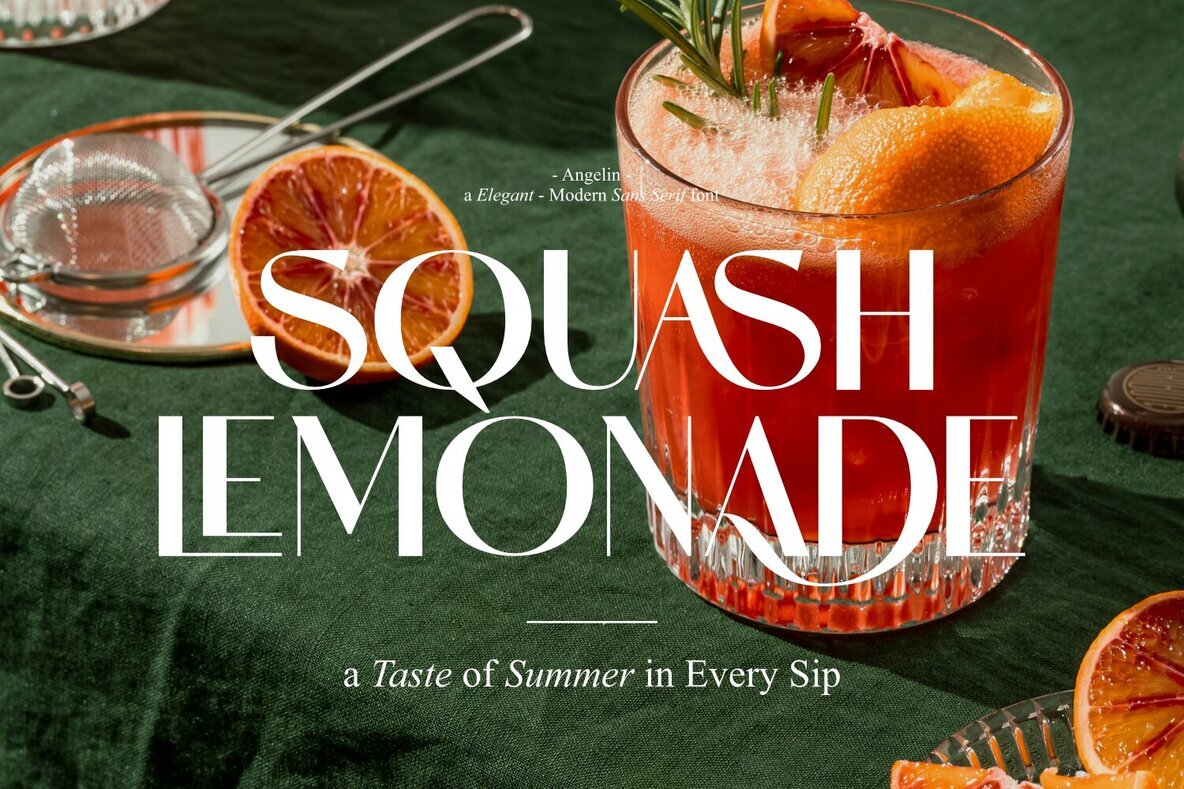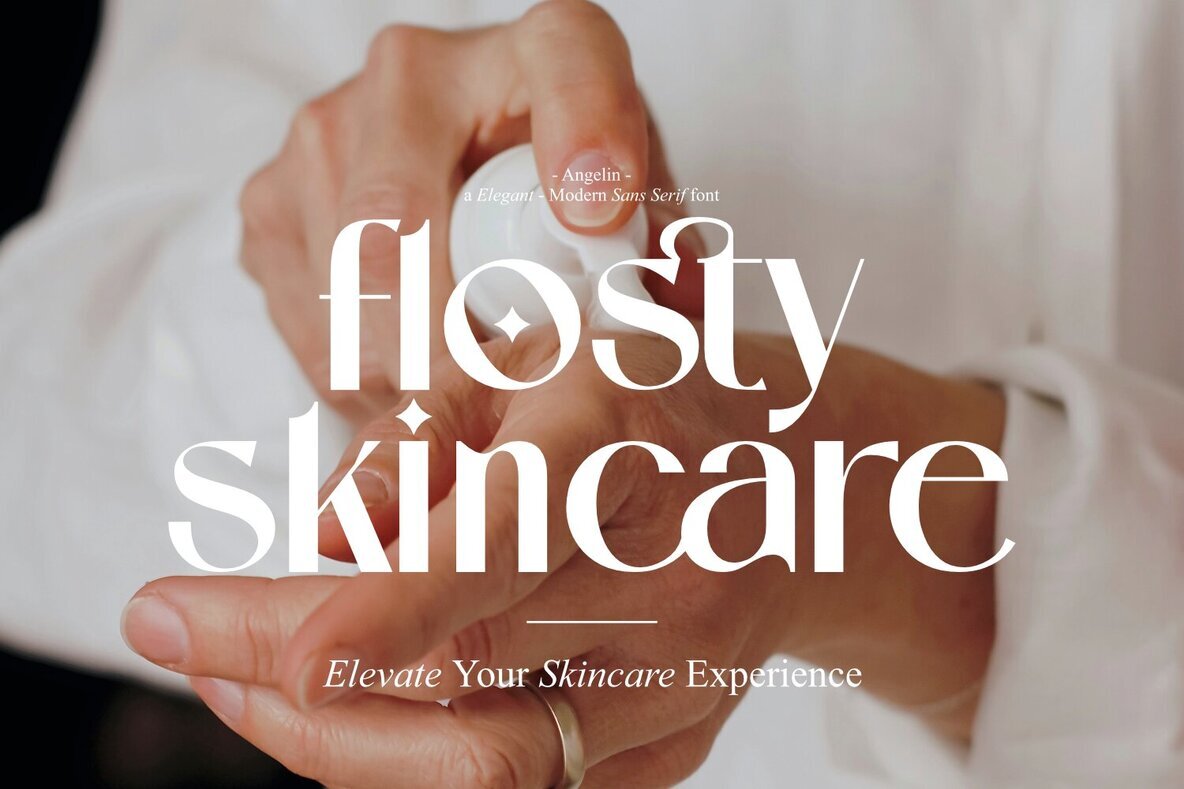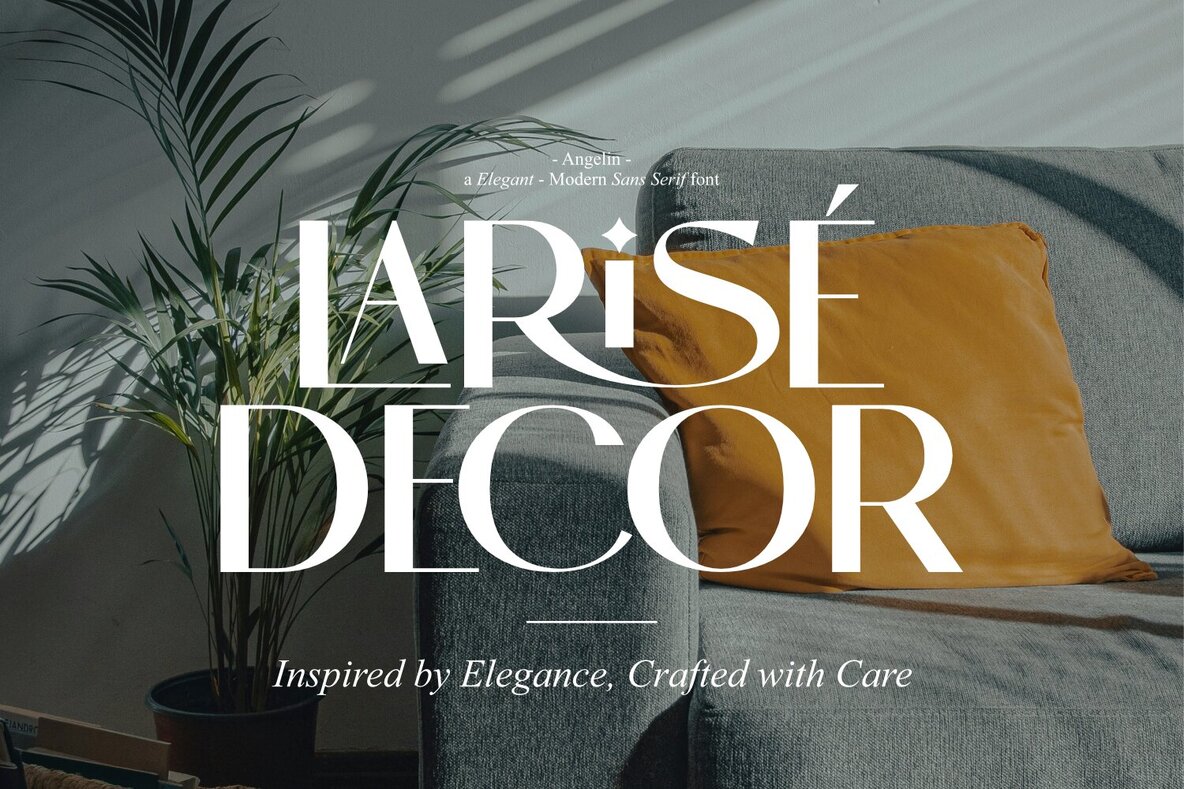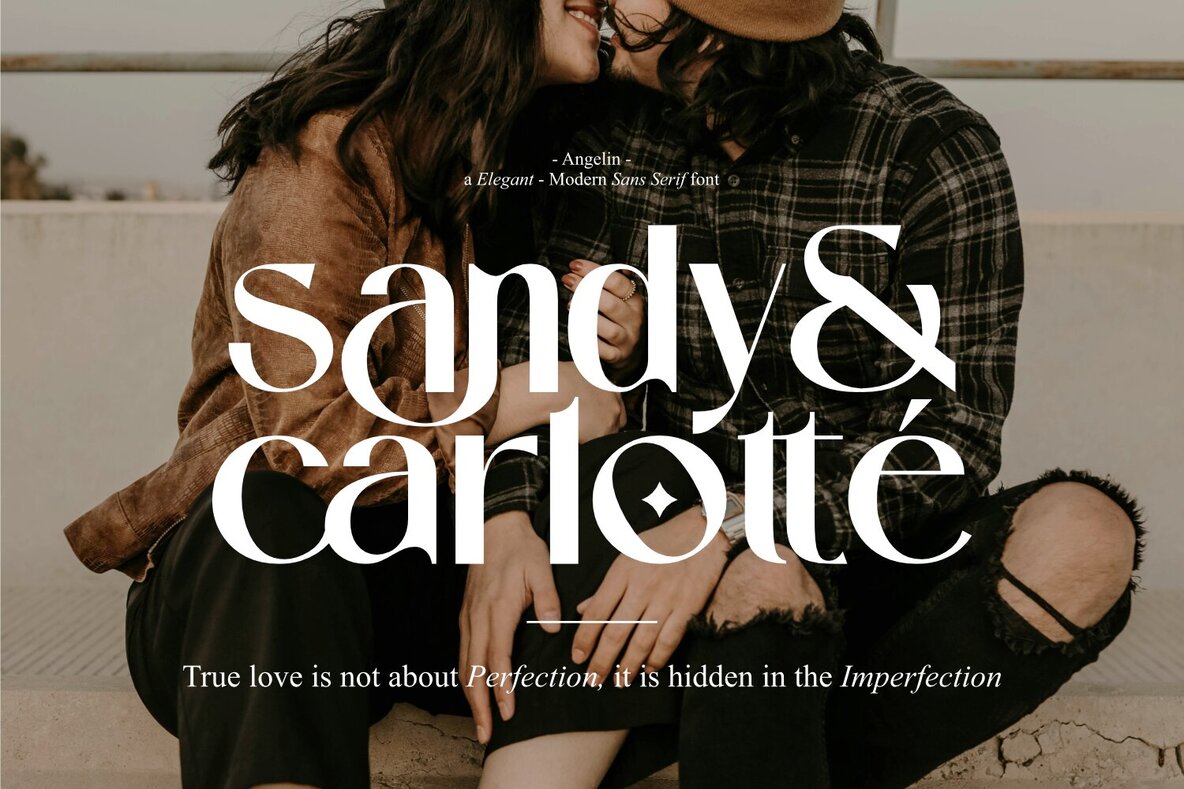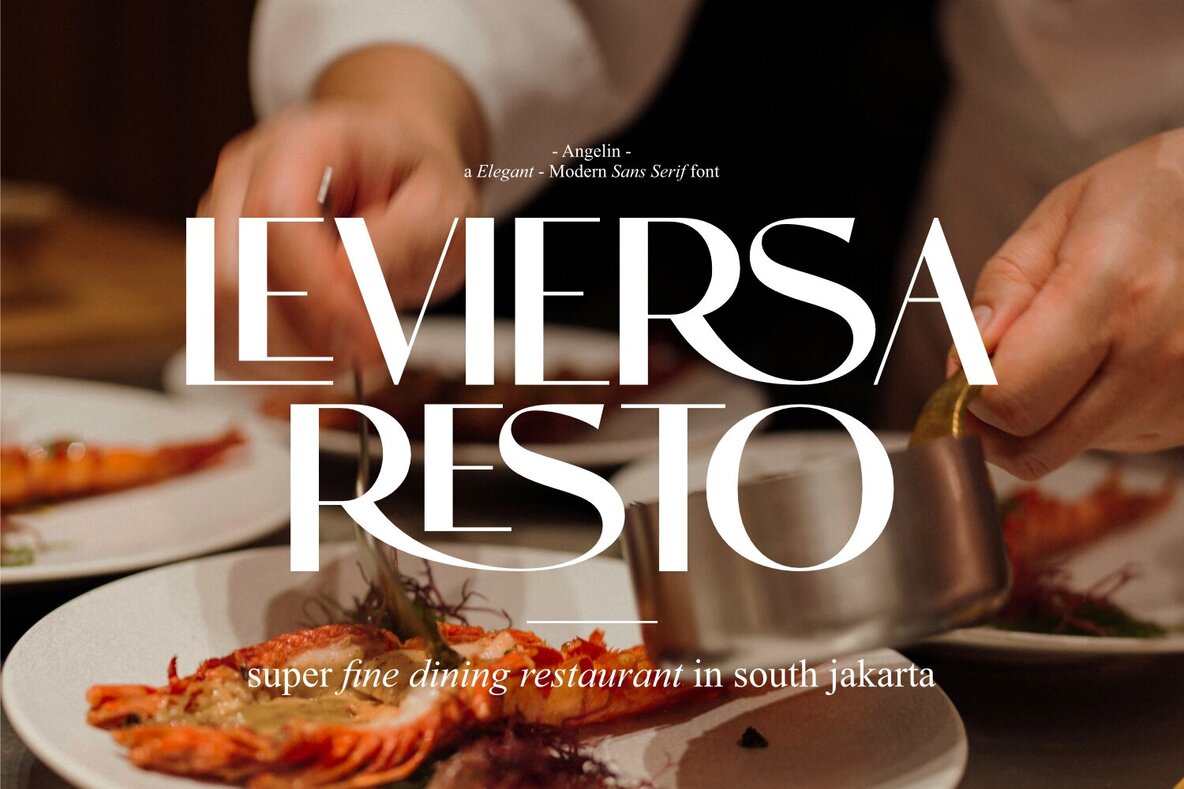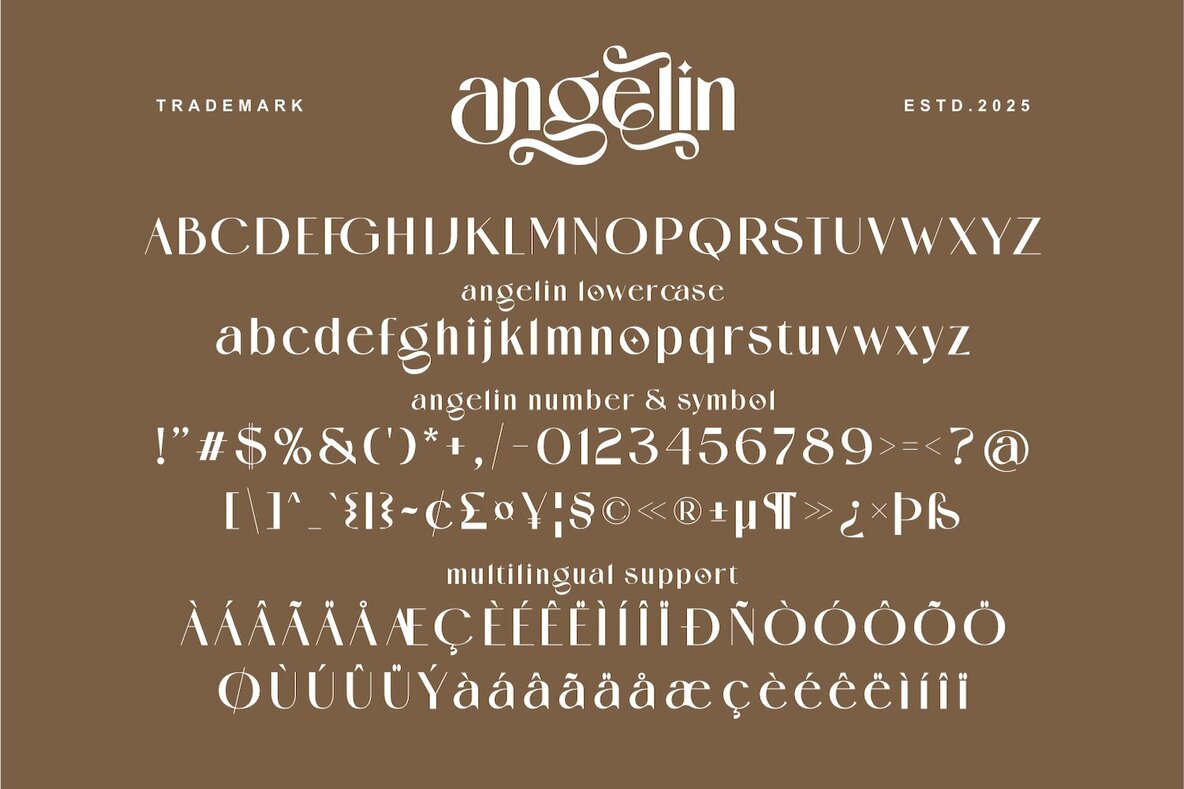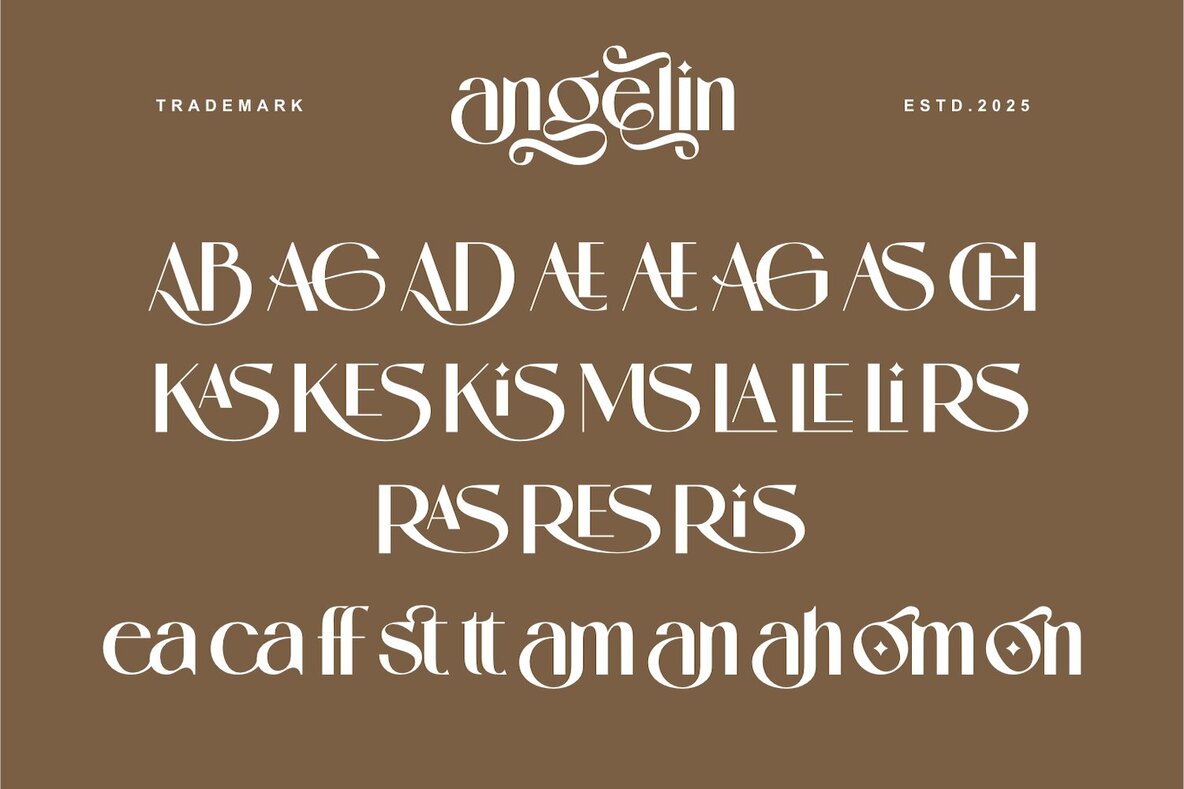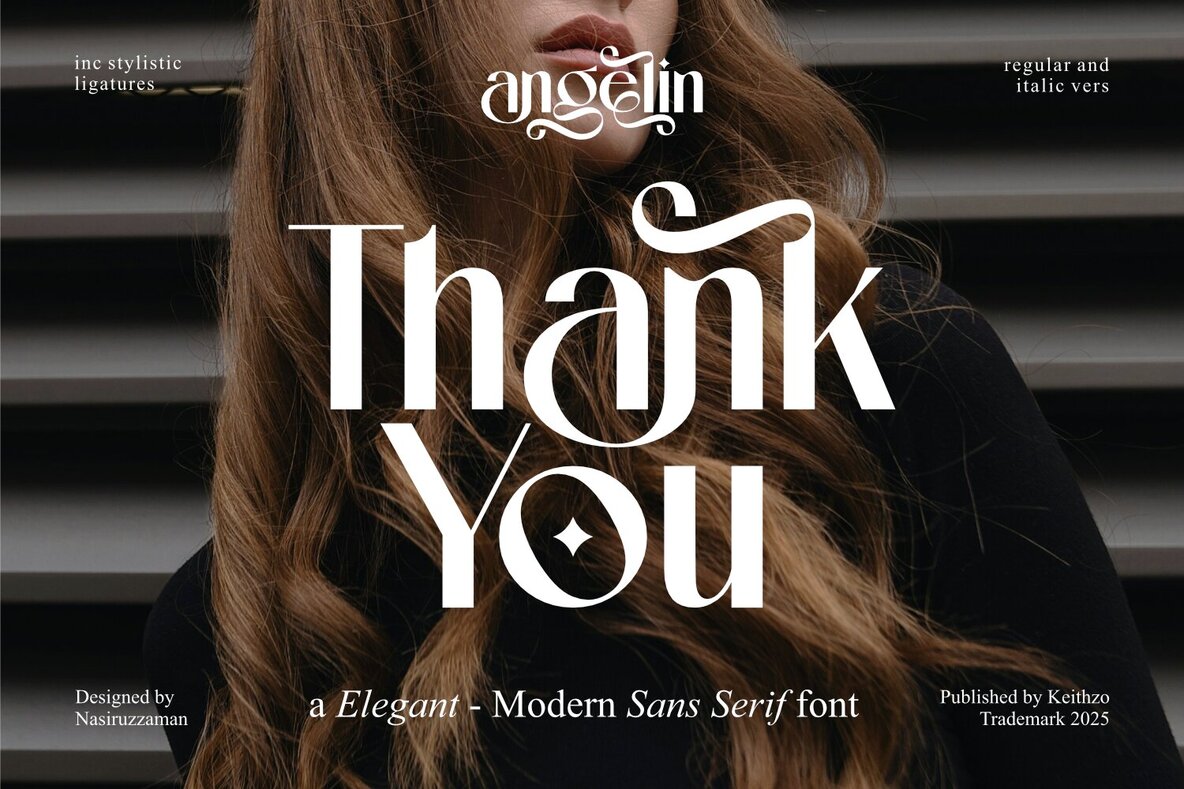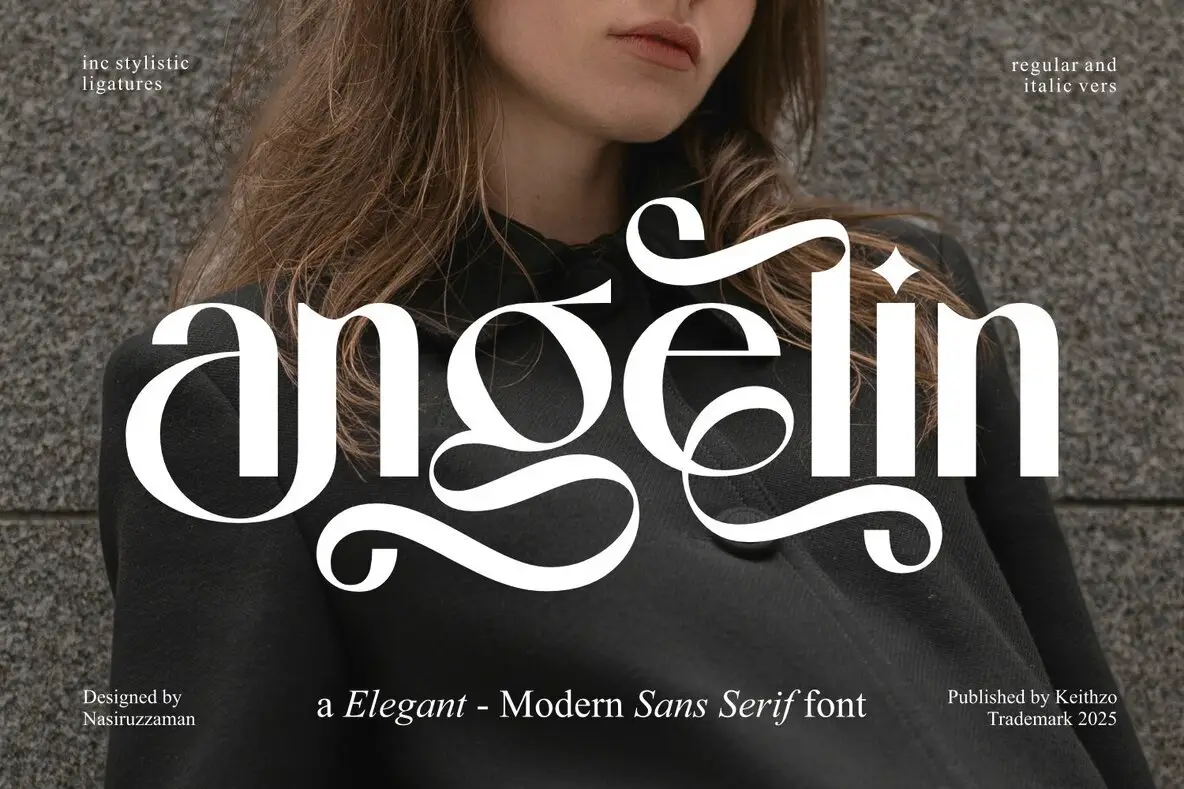
Angelin Font
Angelin is a modern sans serif font designed for those who value sophistication and luxury in their projects. Its refined curves and impeccable balance bring a sense of high-end professionalism that makes it the ideal choice for designs requiring a touch of class and distinction. Whether you're working on a luxury brand identity, crafting elegant wedding invitations, creating impactful editorial layouts, or developing sleek websites, Angelin fits seamlessly into a wide range of applications. Its versatility ensures your message is delivered with style and clarity. Features:Angelin: A Modern Sans Serif With Sophistication